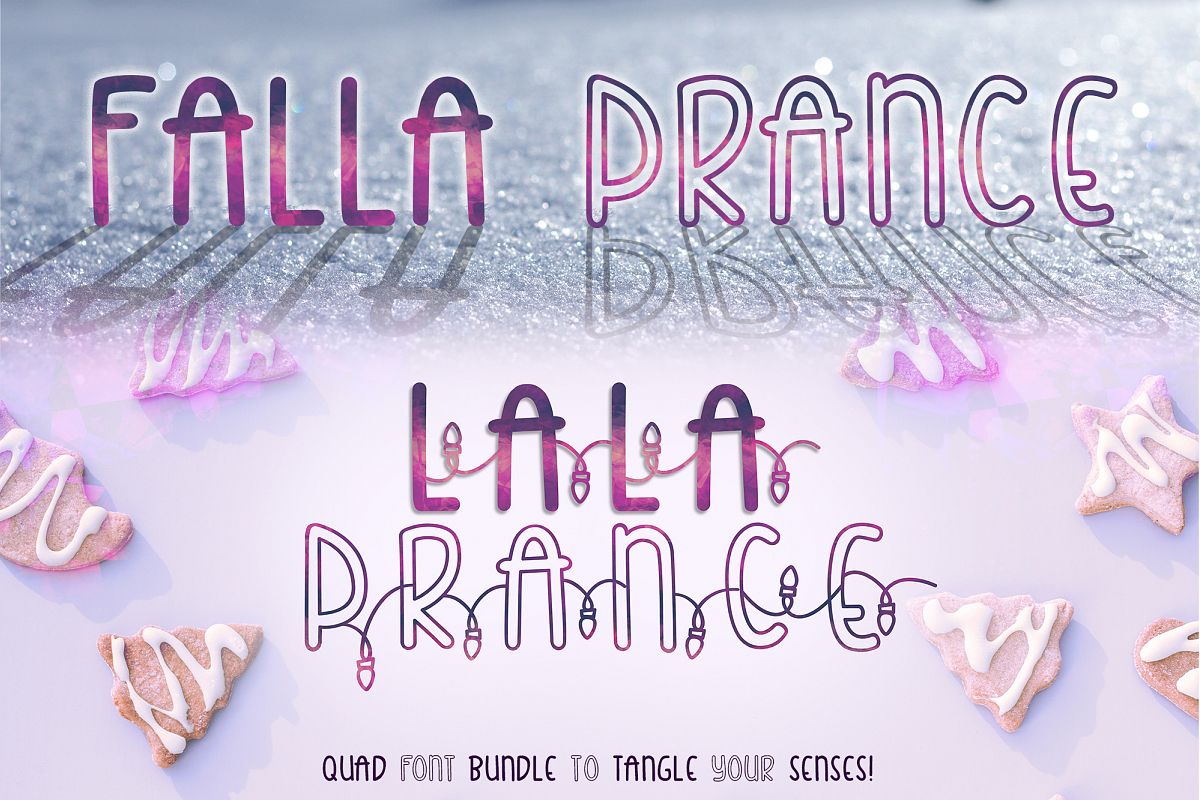
Falla & Lala Prance Bundle| A cute all caps quad font
Here is a cute bold and outlined all caps font bundle! <3 Perfect for any occasion and goes well with christmas or any lighted occasion just change up the colors!
*The solid and outlined are in the same font ( upper case solid and lower case outlined)